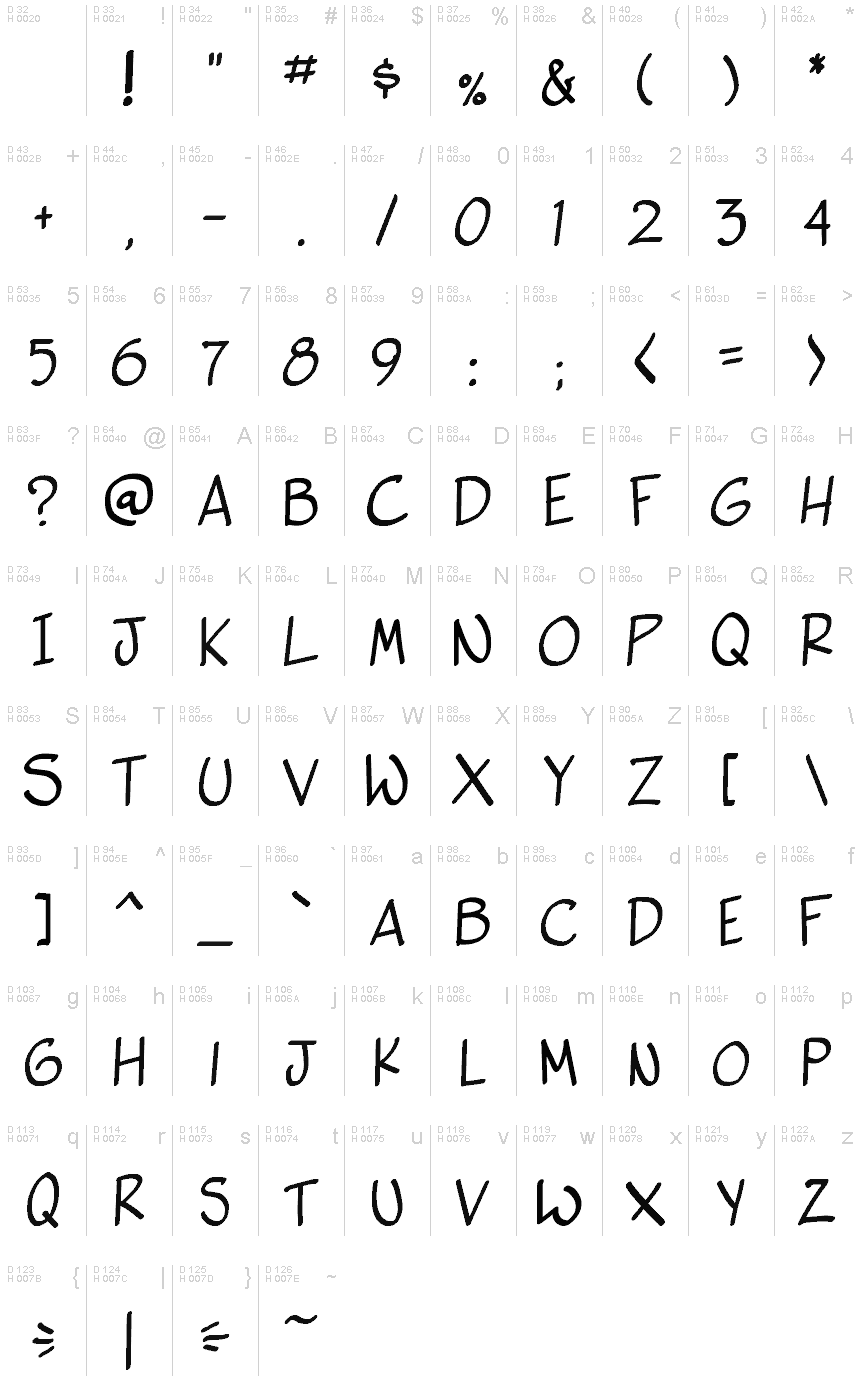
vigilante sidekick
Vigilante Sidekick emerges from the creative foundry of Pressgang-studios.com as a dynamic display font that captures the essence of comic book artistry with its script-like flair. Its semi-light weight provides a sense of agile movement, perfect for conveying energy and action in your designs. The playful yet bold strokes embody a casual elegance that makes it ideal for projects aiming to strike a balance between whimsical charm and serious storytelling.
This font's aesthetic appeal lies in its ability to evoke the nostalgia of classic comics while maintaining a modern twist, making it versatile for an array of creative endeavors. Whether you're crafting logos, posters, or engaging graphical narratives, Vigilante Sidekick is poised to add an element of adventure and fun to your visual compositions. With its distinctive style, this font stands out as a sidekick that has the potential to steal the show.